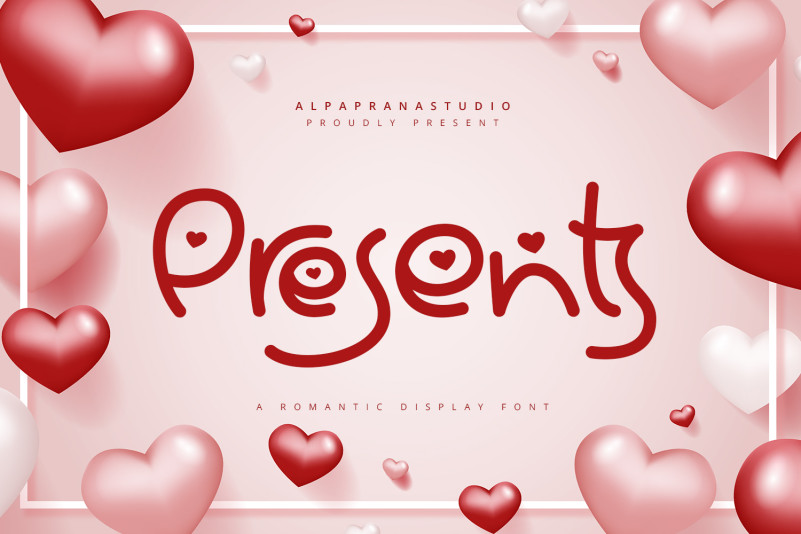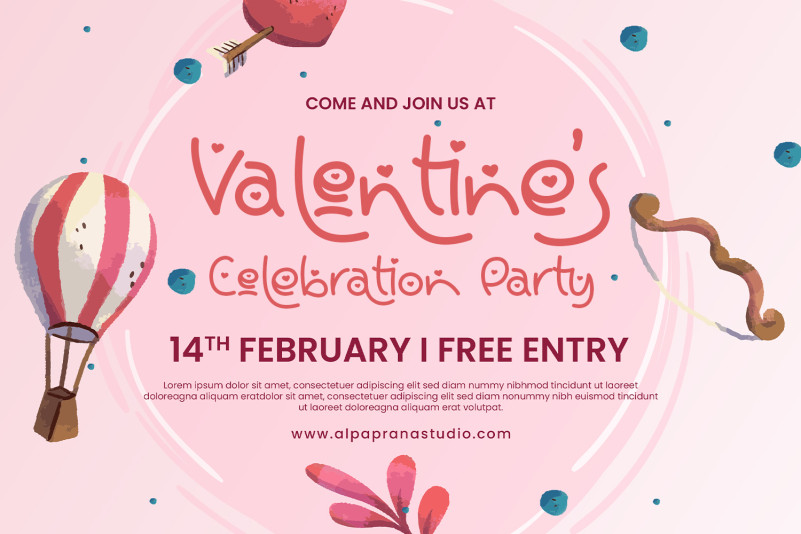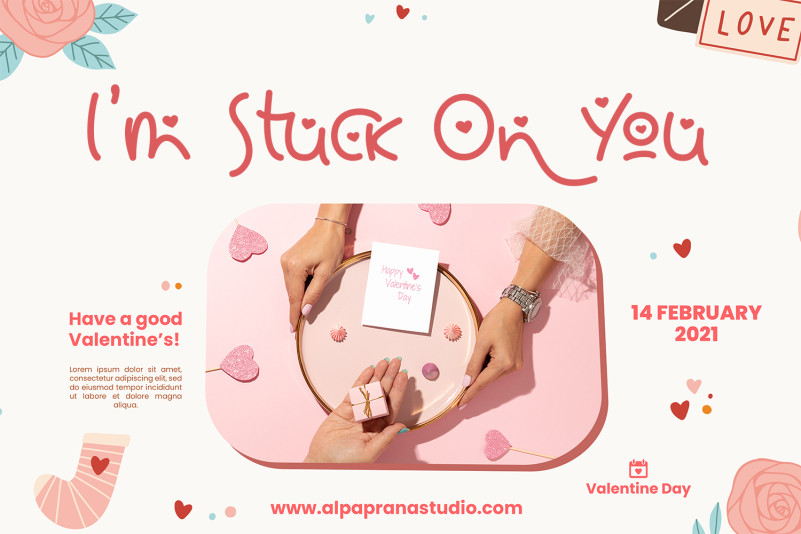
Presents Font
Presents Display Font is a romantic display font with romantic and casual feels. It will be perfectly used for Branding, Logo Design, Lettering, Logotype, Clothing, Poster, magazine, packaging, posters, shopping bags, t-shirts, book covers, photography, special events and other design project.